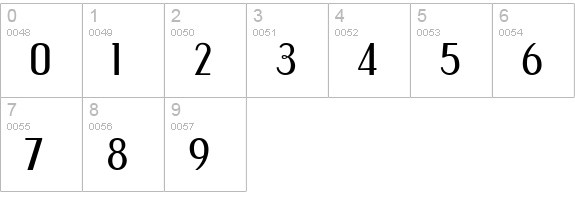
Engebrechtre font is a unique and elegant typeface that exudes sophistication and charm. Its delicate curves and stylish flourishes make it perfect for adding a touch of class to any design project. The font's versatility allows it to be used for a variety of purposes, from branding and logos to invitations and signage. What sets Engebrechtre font apart is not only its stunning design but also the fact that it is available for free. Yes, you read that right - this exquisite font can be downloaded at no cost from FontsMarket.com. Whether you are a professional designer looking to elevate your work or a hobbyist seeking to make a statement, Engebrechtre font is the perfect choice. Download it today and let your creativity shine with this beautiful typeface.